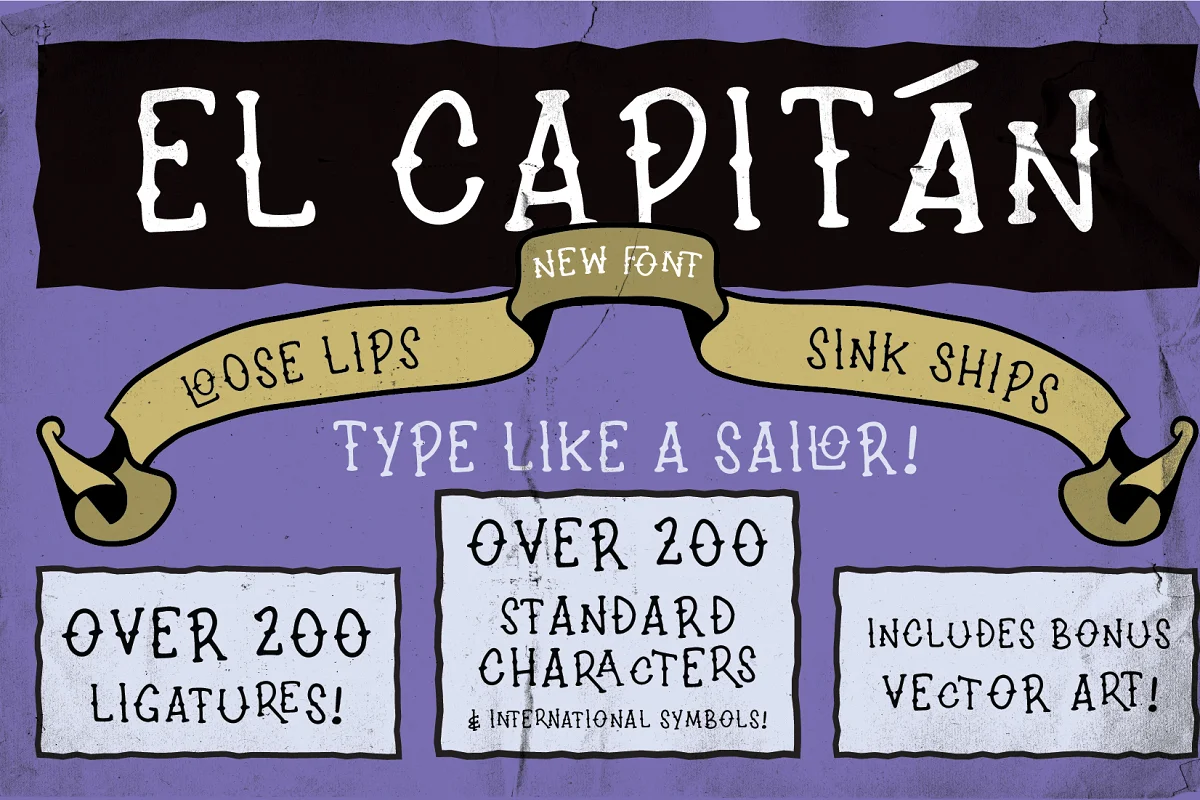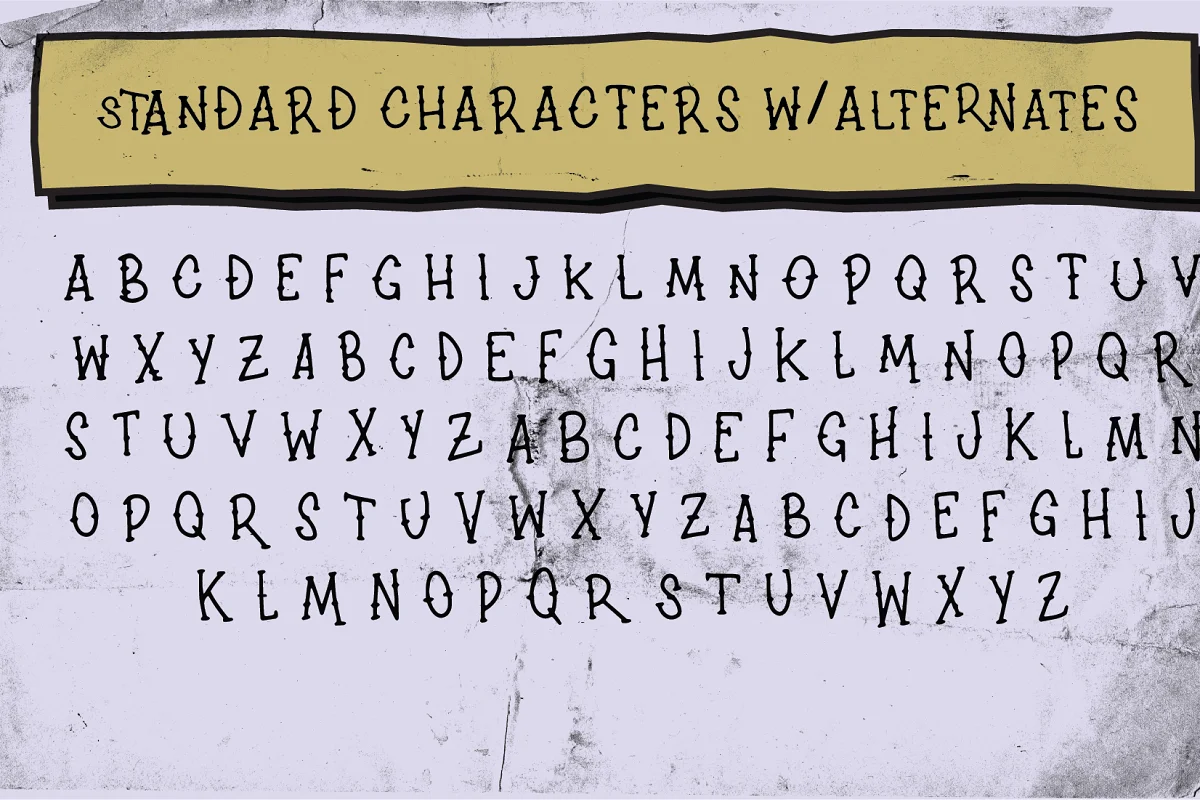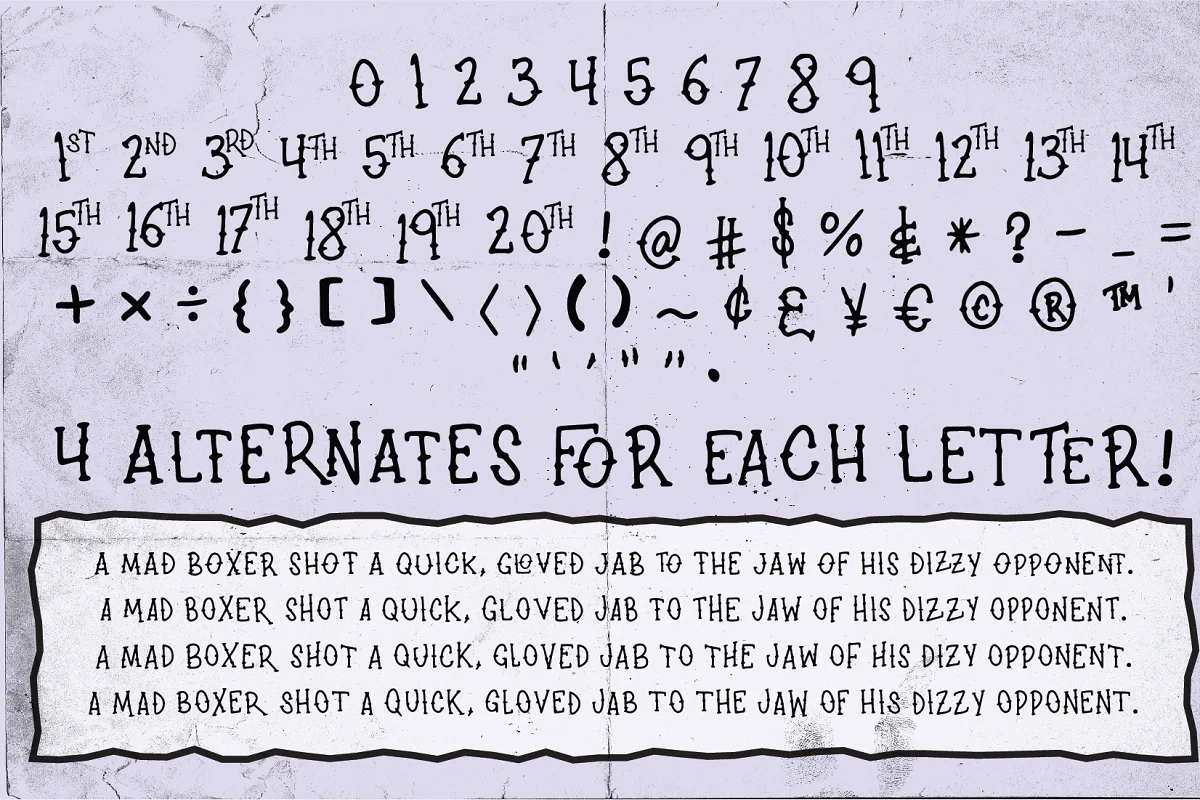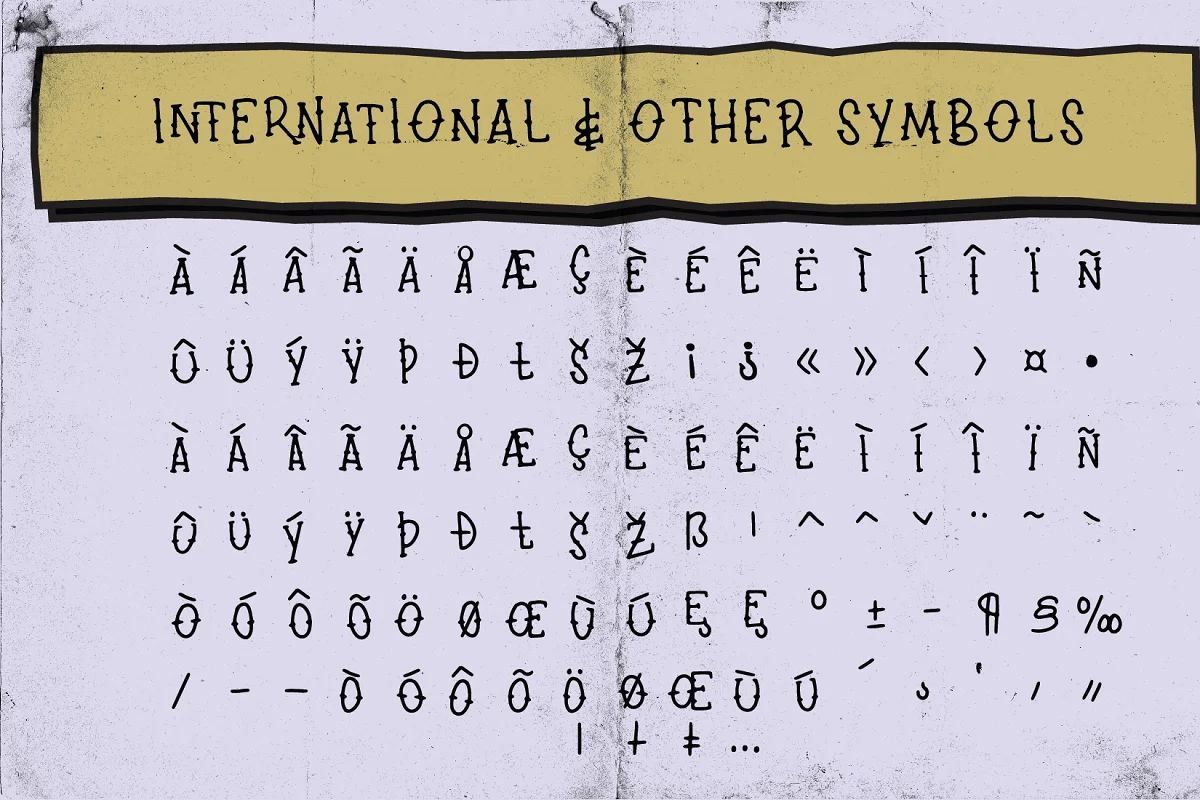
About the El Capitan Font
Loose Lips Sink Ships. Type like a sailor with EL CAPITAN! Design posters, ads, packaging, or whatever else you want using this open-type font that includes over 200 standard characters, alternates & international symbols, over 200 ligatures, plus 8 grawlixes and some bonus vector art.
To use the grawlixes, turn on discretionary ligatures and type out the entire word in all caps with an exclamation (example: GRAWLIX!).